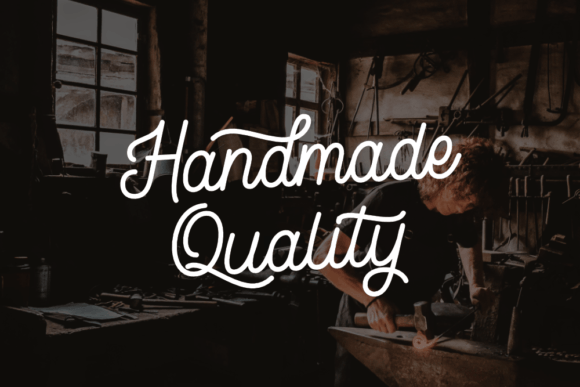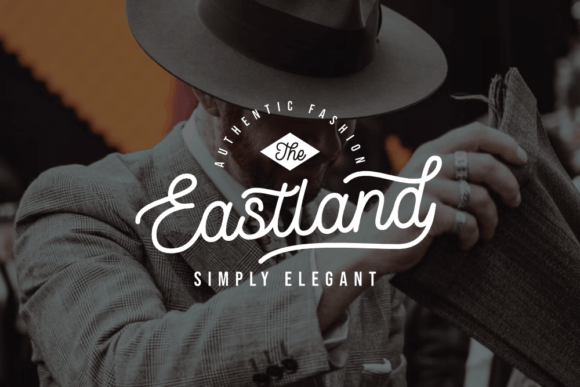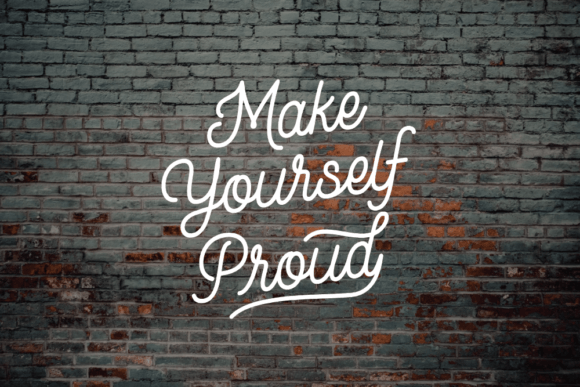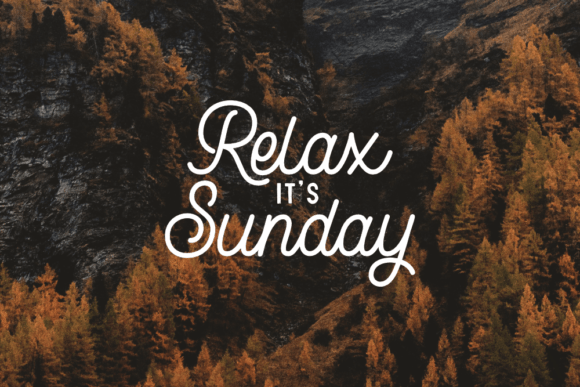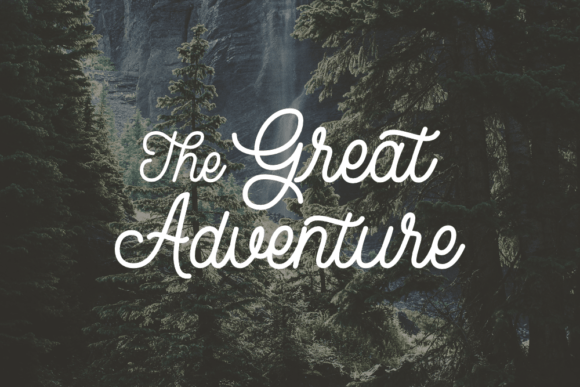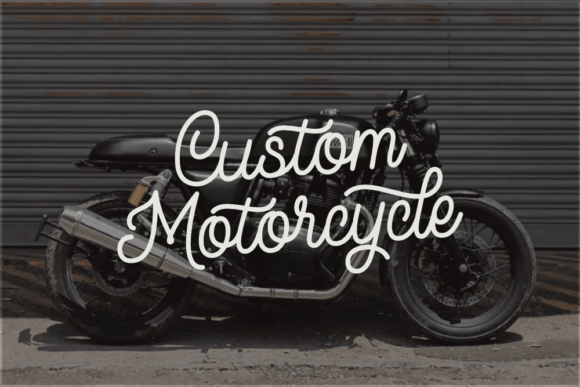
Discover the Charm of Brittanic London Font: A Monoline Script Font for Every Design Need
Are you a designer, crafter, or simply a typography enthusiast looking for a font that embodies casual charm and versatility? Look no further than the Brittanic London Font. This beautifully crafted monoline script font is designed to capture the essence of down-to-earth elegance, making it perfect for a wide range of design projects.
What Makes Brittanic London Font Stand Out?
Brittanic London Font is a carefully handcrafted monoline script font that boasts a unique blend of casual sophistication and readability. Its monoline design ensures that each letter flows seamlessly into the next, creating a beautiful and harmonious word. This font is not just a collection of letters; it’s an experience that brings a touch of personality to any design.
The Characteristics of Brittanic London Font
- Monoline Script: The font features a monoline design, which means that every letter is crafted with a single, flowing line. This creates a beautiful consistency and elegance in the text.
- Casual Charm: Unlike traditional serif fonts, Brittanic London Font exudes a casual charm that makes it perfect for designs that require a friendly and approachable feel.
- Readability: The font is designed to be highly readable, making it suitable for both headings and body text.
- Versatility: With its unique blend of elegance and casualness, Brittanic London Font can be used in a variety of design projects, from branding and packaging to digital media and craft projects.
Who Can Benefit from Using Brittanic London Font?
Whether you’re a professional designer, a crafty DIY enthusiast, or a business owner looking to create a unique brand identity, Brittanic London Font has something to offer. Here are a few examples of who can benefit from using this versatile font:
- Graphic Designers: Add a touch of elegance and sophistication to your designs with a font that’s both unique and versatile.
- Crafters and DIY Enthusiasts: Use Brittanic London Font to create beautiful and personalized crafts, such as handmade cards, invitations, and signs.
- Business Owners: Establish a strong brand identity with a font that’s both professional and friendly.
- Digital Media Creators: Use Brittanic London Font to add a touch of personality to your digital content, such as blog posts, social media graphics, and video scripts.
Tips for Using Brittanic London Font Effectively
To get the most out of Brittanic London Font, here are a few tips to keep in mind:
- Pair it with contrasting fonts: Combine Brittanic London Font with a sans-serif or serif font to create a visually appealing contrast.
- Experiment with colors: Try pairing the font with different colors to create a unique and eye-catching design.
- Use it consistently: Use Brittanic London Font consistently throughout your design to create a cohesive and professional look.
Brittanic London Font is a beautiful and versatile monoline script font that’s perfect for designers, crafters, and anyone looking to add a touch of elegance and sophistication to their designs. With its casual charm, readability, and versatility, this font is sure to become a true favorite in your design arsenal.